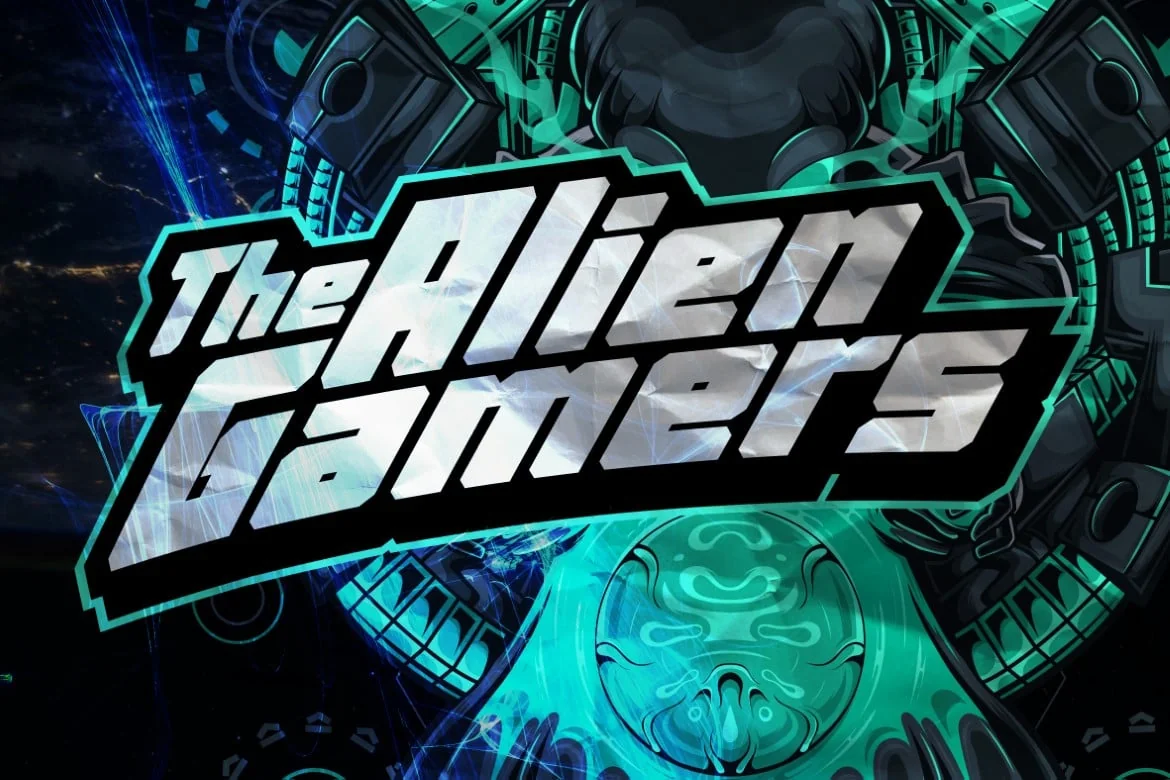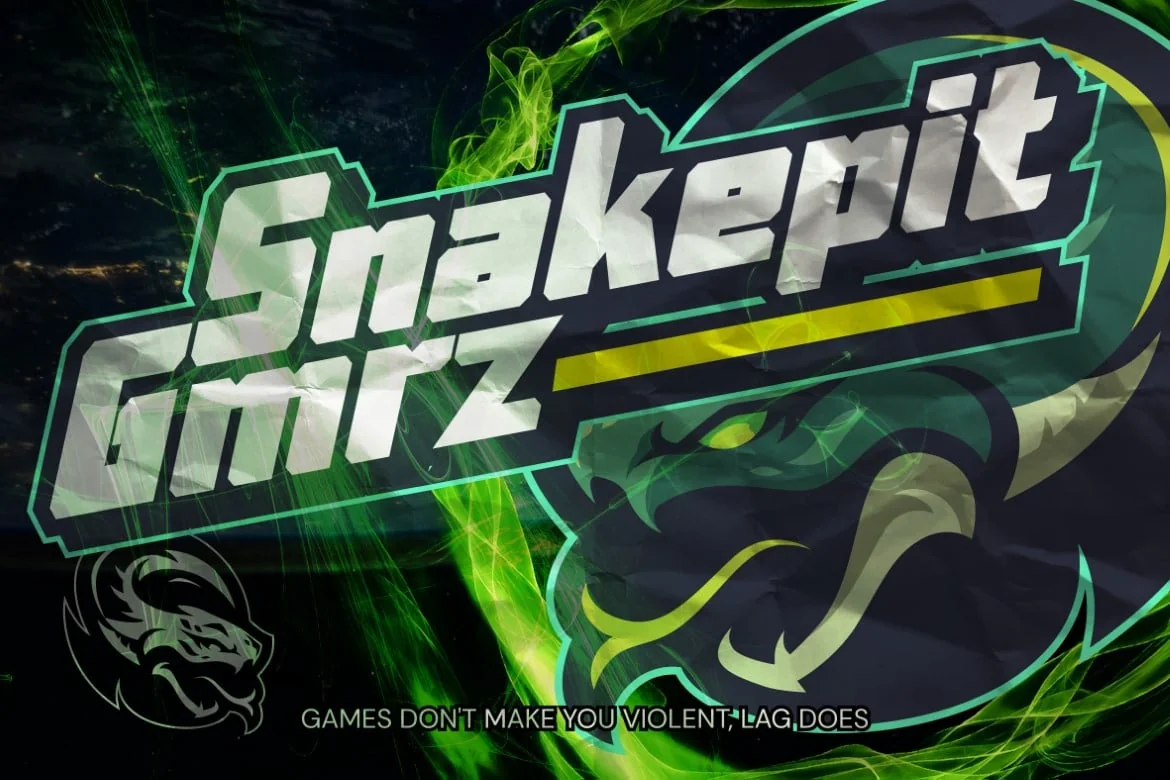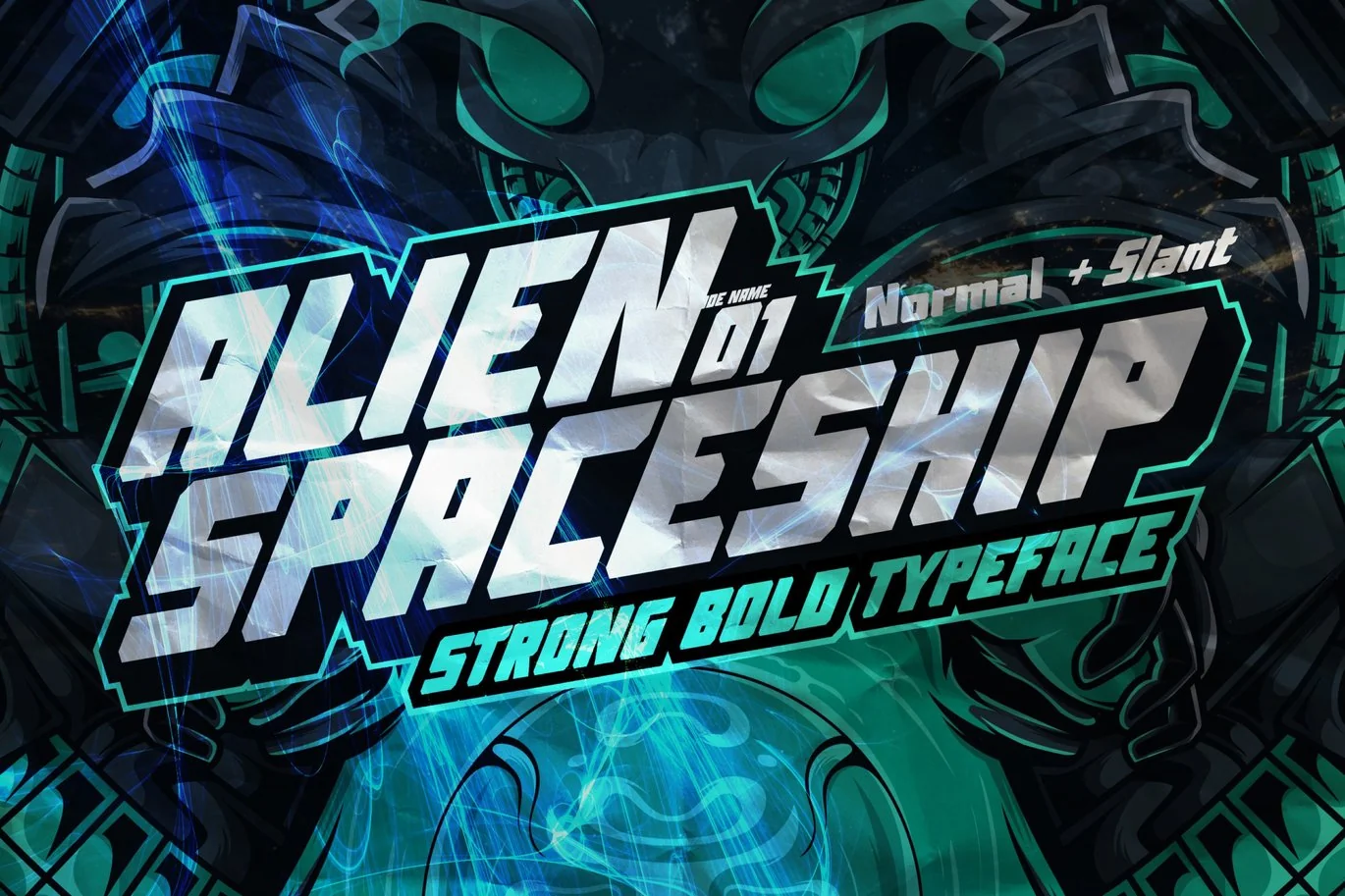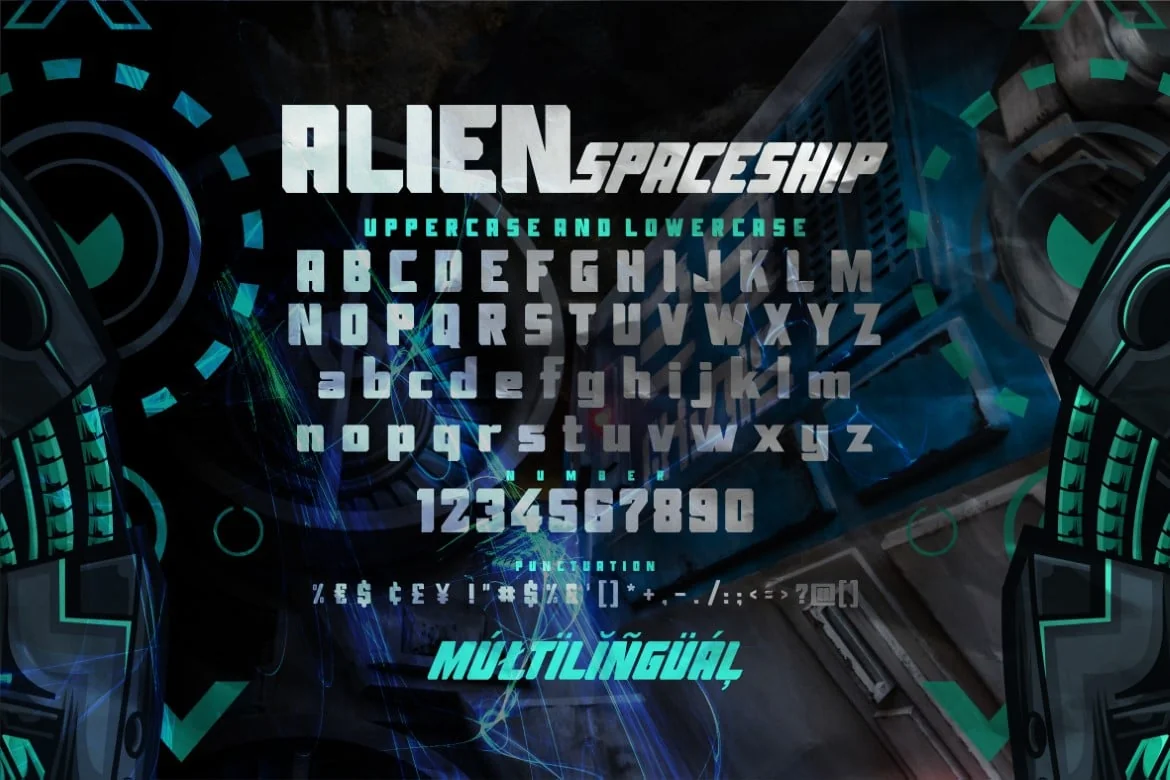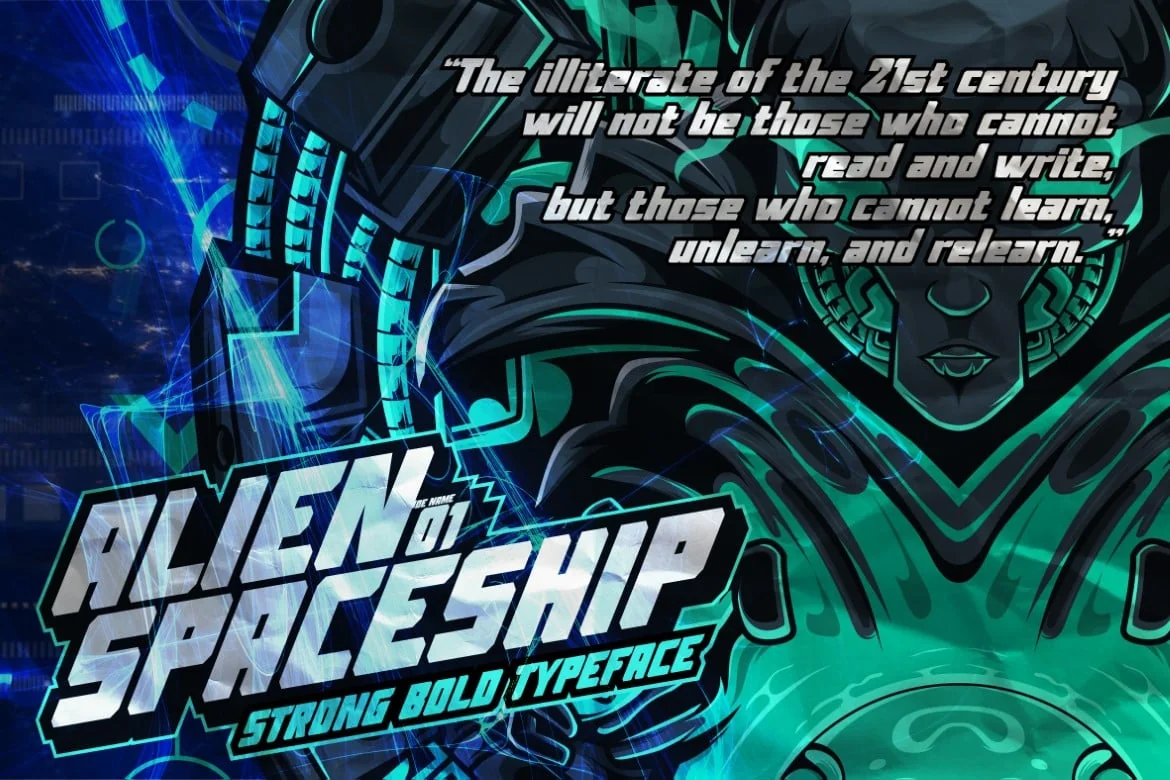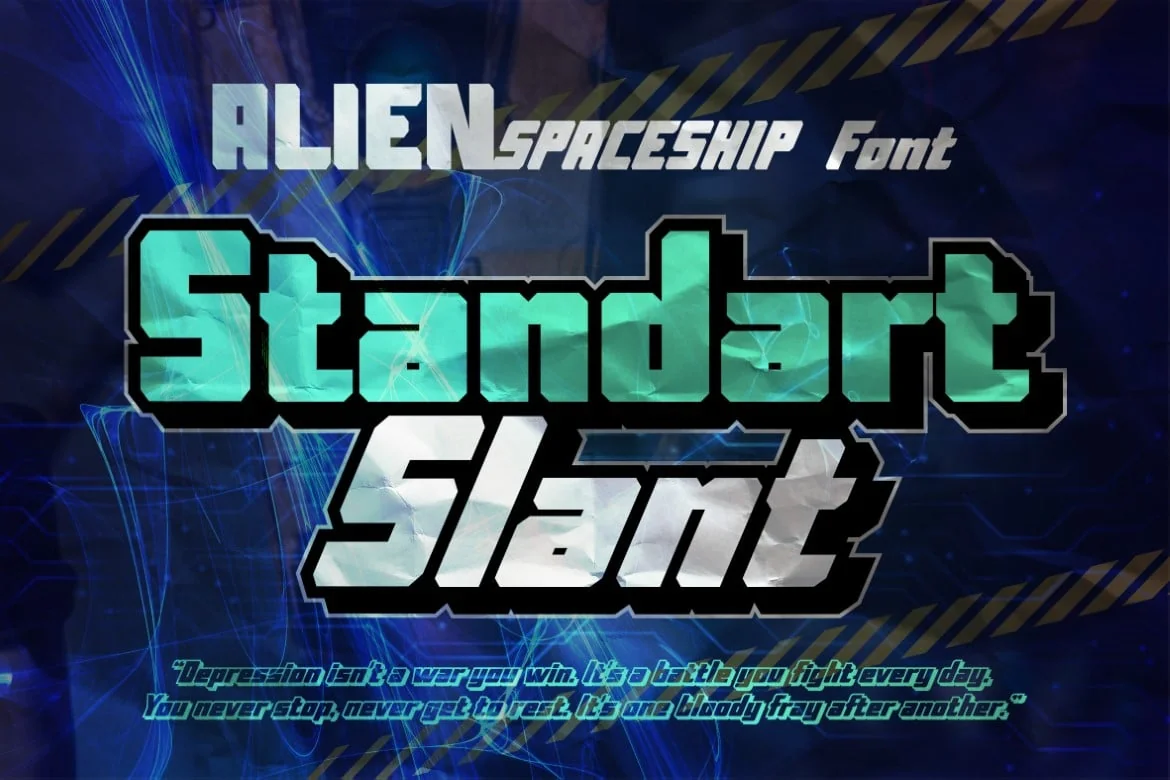
AN Alien Spaceship – Strong Bold Font
introducing : Alien Spaceship Font ,
come with powerful themes. We wanted to create the most unique character. It matches applies in some designs such as the gaming logo, logotype, brand, packaging, Youtube cover, cover book, any social media projects and more custom design.